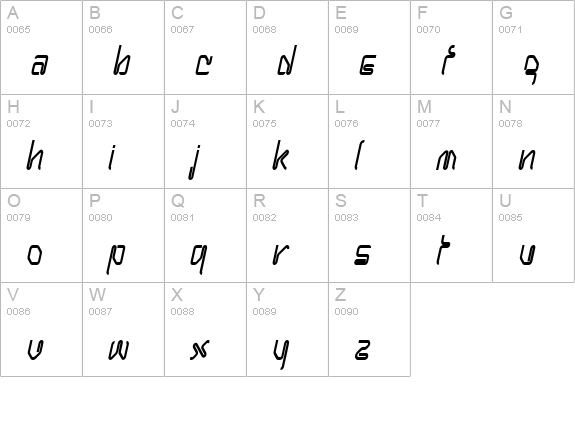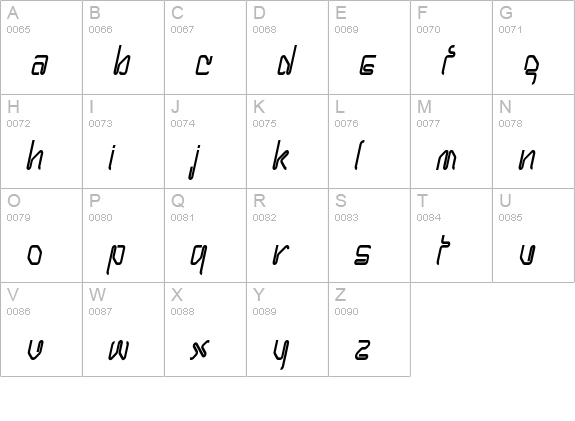
Hanger Condensed BoldItalic is a distinctive, condensed-width variant in the Hanger typeface family \xE2\x80\x94 well suited to design and typography projects.
Hanger Condensed BoldItalic is a stunning and versatile font that adds a touch of modern sophistication to any design project. With its bold and italicized style, this font exudes confidence and elegance. The sleek and clean lines of Hanger Condensed BoldItalic make it perfect for a wide range of applications, from branding and advertising to web design and print materials. It effortlessly captures attention and creates a lasting impression. What makes Hanger Condensed BoldItalic even more appealing is that it is freely available to download at FontsMarket.com. This means that you can easily access this exceptional font without any cost, making it an excellent choice for designers, developers, and anyone in need of a high-quality font without breaking the bank. Whether you're working on a professional project or simply adding a touch of style to personal creations, Hanger Condensed BoldItalic is sure to elevate your designs to new heights. Its unique combination of boldness and elegance will captivate your audience and leave a lasting impact. So don't miss out on this incredible opportunity to enhance your designs with a freely available font - download Hanger Condensed BoldItalic today at FontsMarket.com.